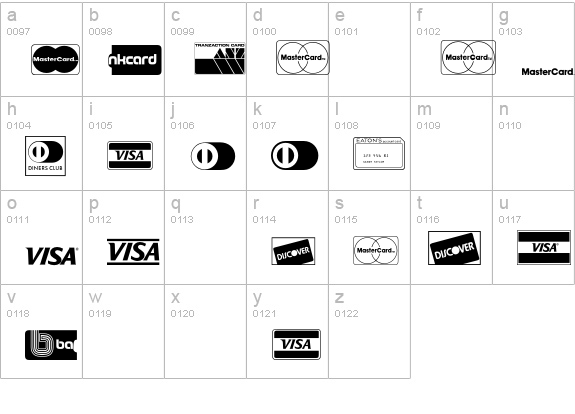
CreditCardsP01 font is a stylish and modern typeface that exudes sophistication and professionalism. Its sleek lines and sharp edges make it perfect for projects that require a contemporary touch. With its clean and minimalistic design, CreditCardsP01 font is versatile and can be used for a wide range of design projects, from branding to web design. One of the best features of CreditCardsP01 font is that it is available for free download at FontsMarket.com. This means that you can easily access this high-quality font without any cost, making it a great choice for designers working on a budget. Whether you need a font for a business card, website, or any other project, CreditCardsP01 font is sure to elevate your design and leave a lasting impression. Download it today and see the difference it can make in your projects!